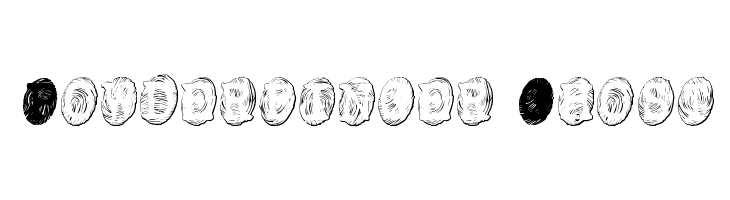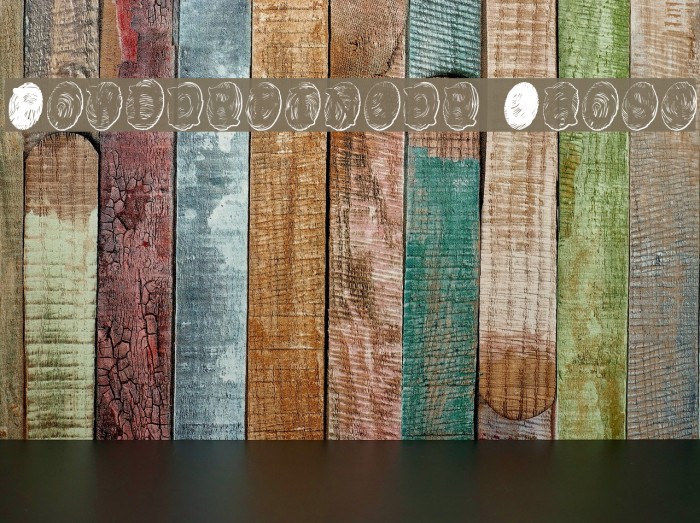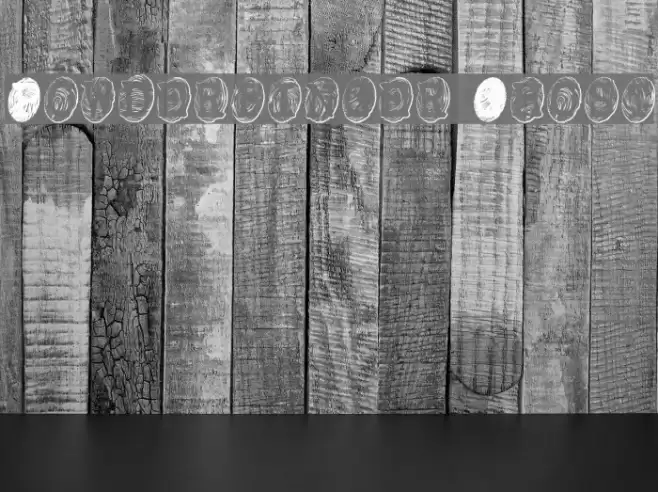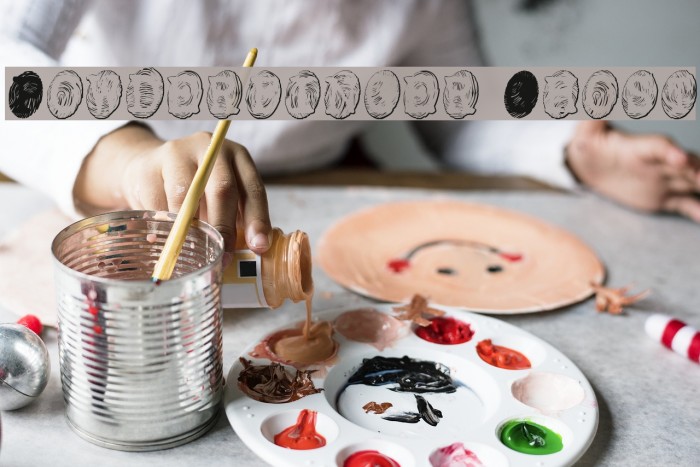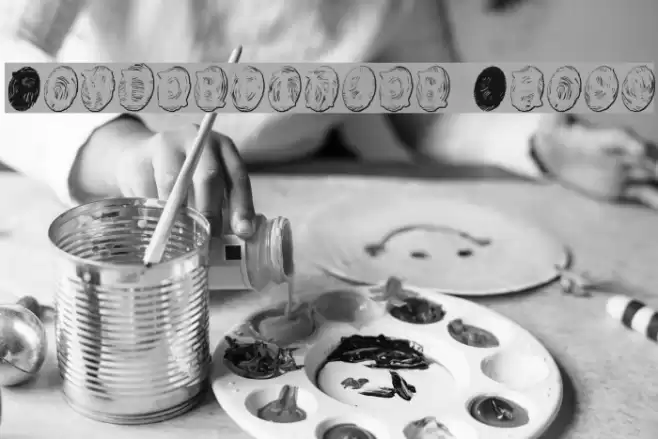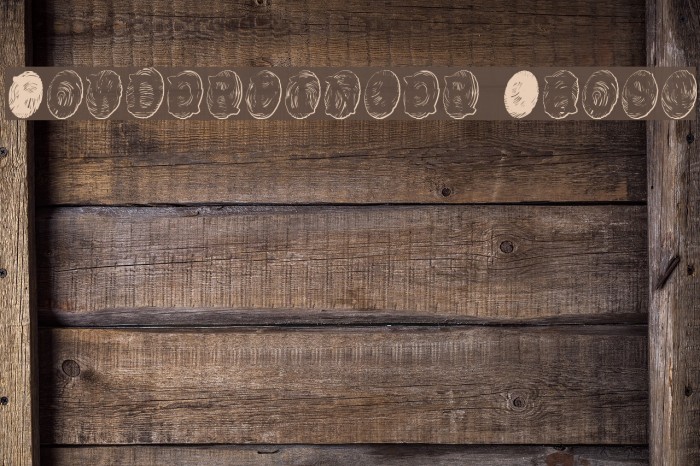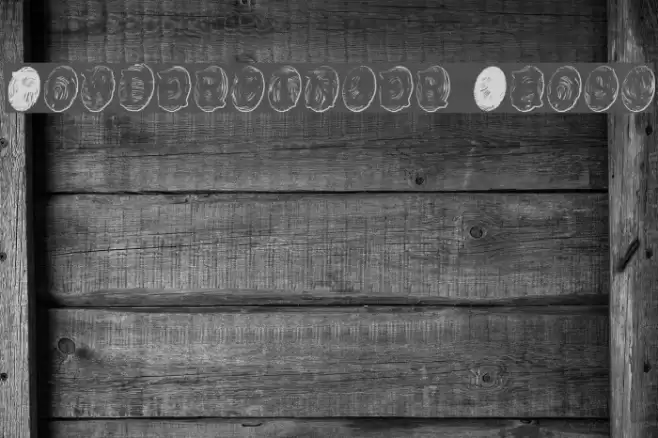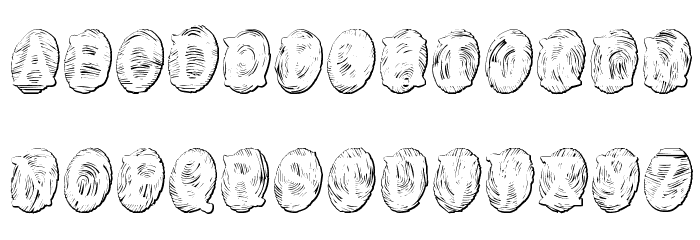
Powderfinger Ghost Font
Powderfinger Ghost Description
This font features a unique, hand-drawn style with a textured, sketch-like appearance. Each character is crafted with a series of swirling lines that create a sense of movement and depth. The letters have an organic, almost ghostly quality, with varying thicknesses that give them a dynamic and artistic flair. The overall look is reminiscent of brush strokes or charcoal sketches, making it stand out with its artistic and slightly chaotic design. This font is ideal for projects that require a creative and unconventional touch, offering a distinct visual impact.
| Overall Style | Artistic, Creative |
| Use Case | Logos, Posters, Creative Branding |
| Proposed Projects | Perfect for artistic projects, album covers, posters, and creative branding that require a unique and expressive style. |